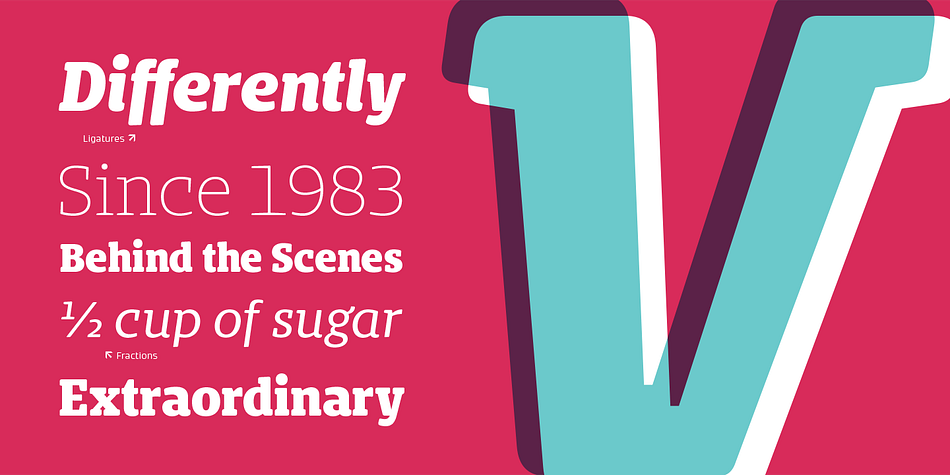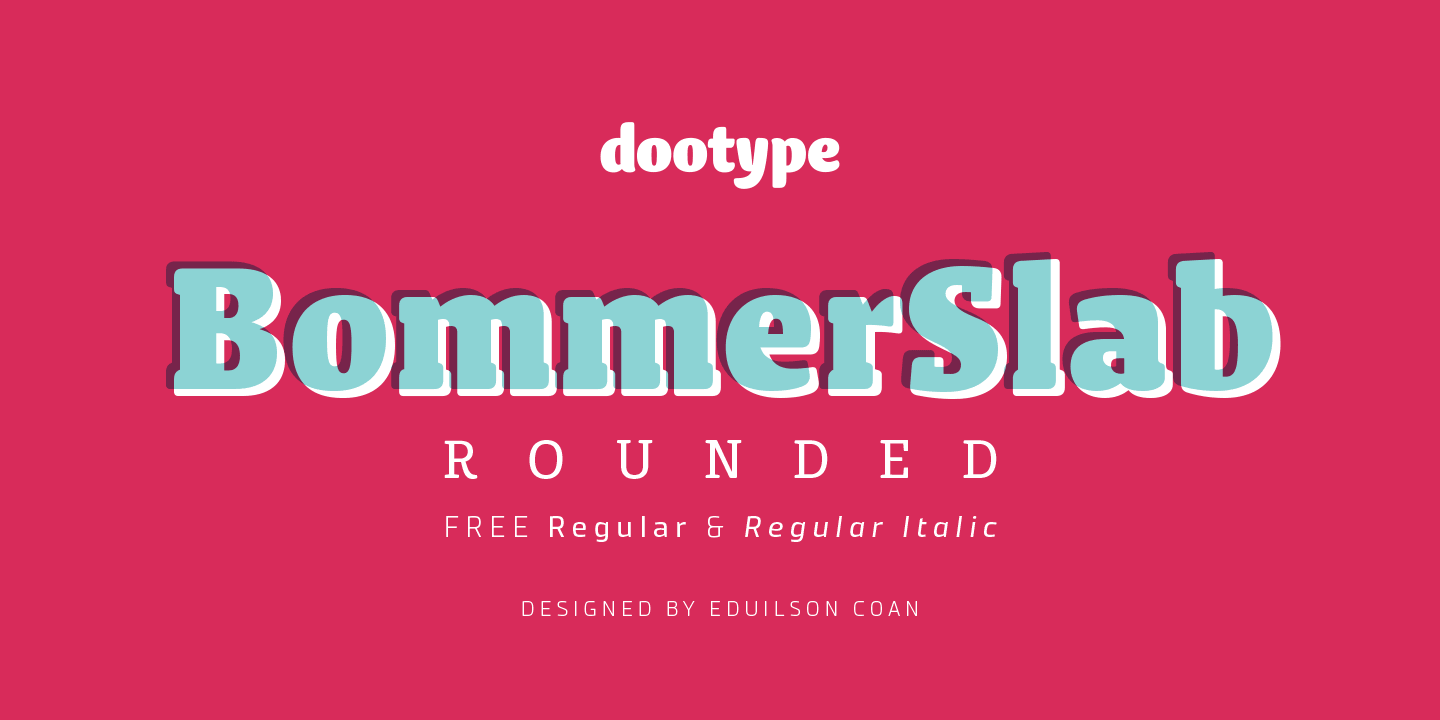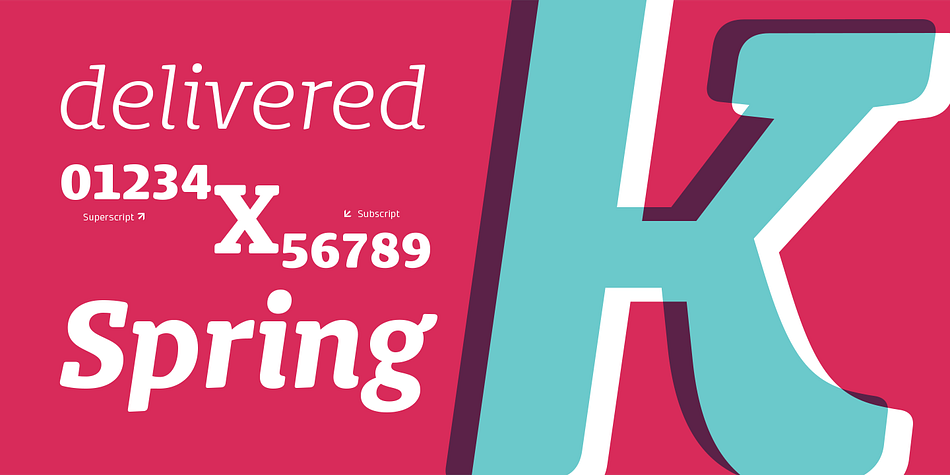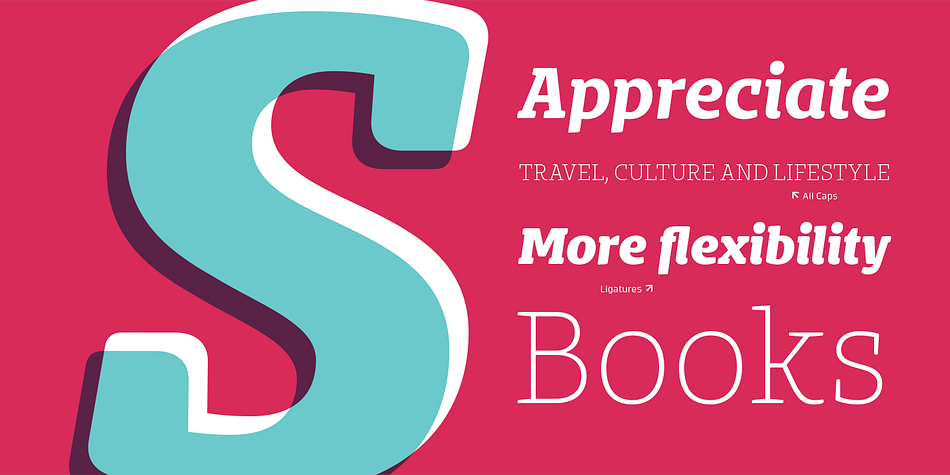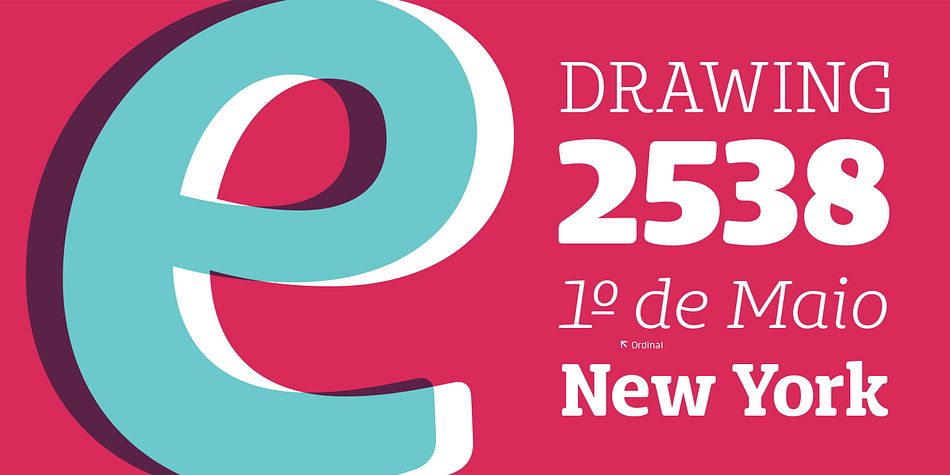
Bommer Slab Rounded is a slab serif font family. This typeface has fourteen styles and was published by dooType.
Bommer Slab Rounded designed by Eduilson Coan is the softer sister of Bommer Slab released in April 2014.
This family includes 14 weights: seven uprights and seven italics and opentype features such as: all caps, ligatures, ordinal, fractions, numerator, denominator, superscript and subscript.